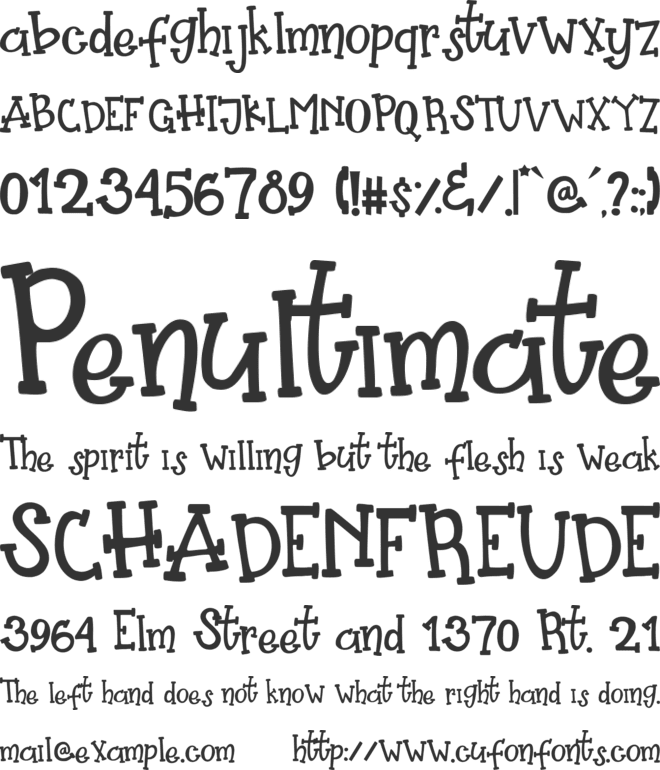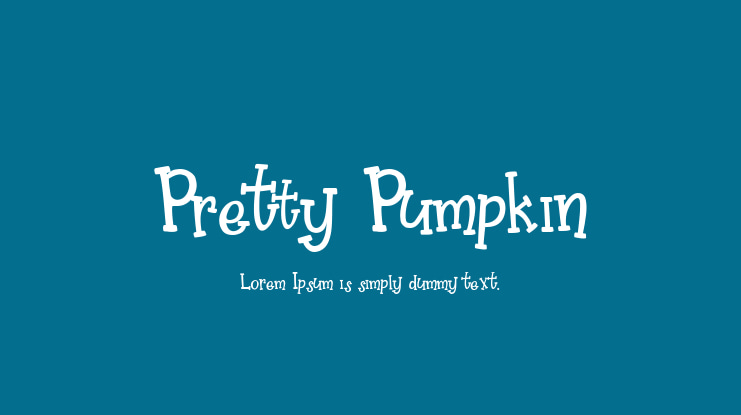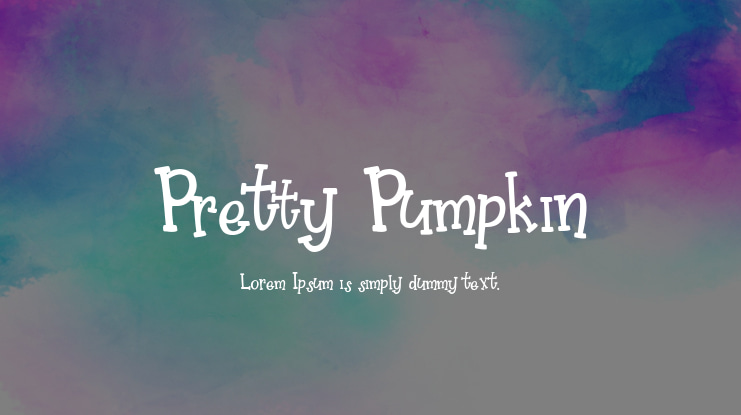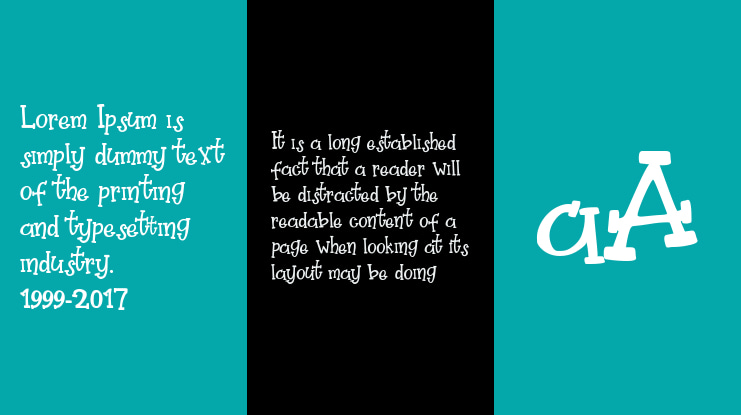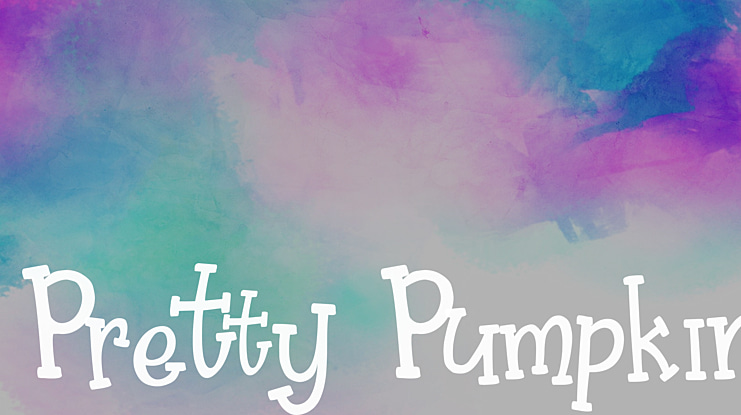
Pretty Pumpkin Font
This enchanting font will turn any creative idea into a true standout. Perfect fit for all of your logos, branding, social media, etc.
Pretty Pumpkin font preview